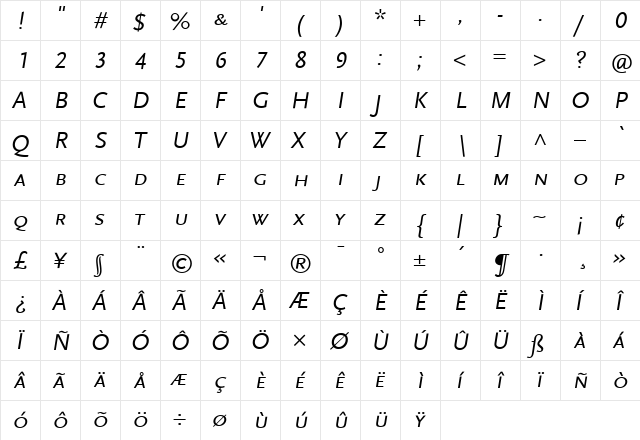
ADScalaSansCaps Medium Italic Font Preview
ADScalaSansCaps Medium Italic
Design Context for ADScalaSansCaps Typeface
ADScalaSansCaps offers clean, dependable letterforms without strong stylistic allegiance, making it a practical choice for designers who need flexibility. The dynamic lean of this cut emphasises speed and emphasis in any layout.
Pro Tip: Try ADScalaSansCaps for annotation and caption copy alongside an upright companion — the contrast in angle creates a dynamic but ordered typographic system.